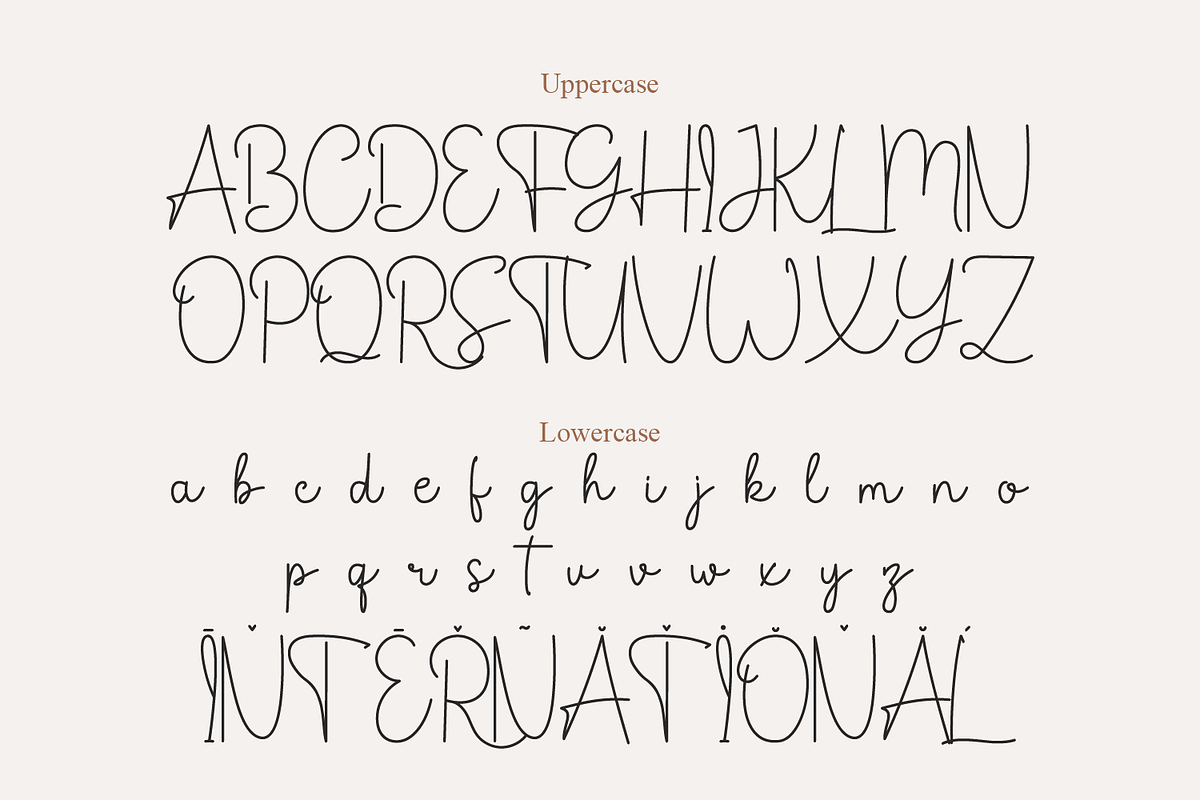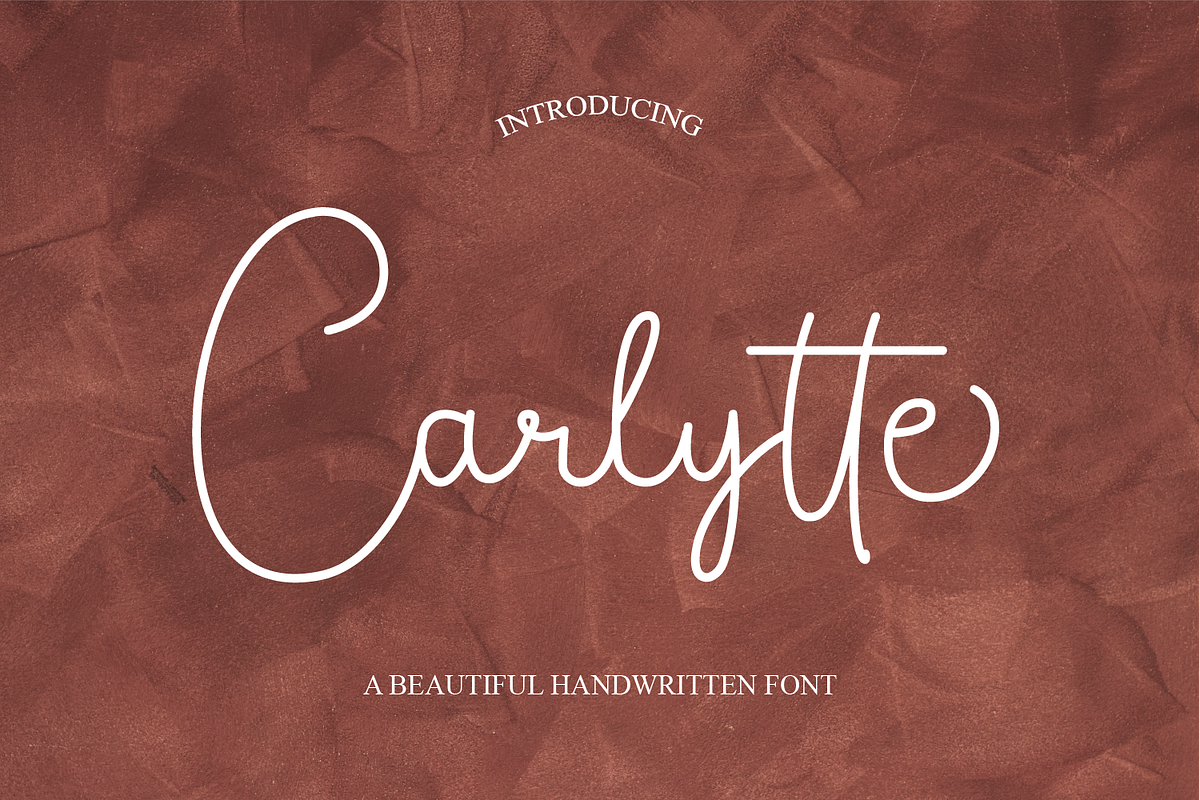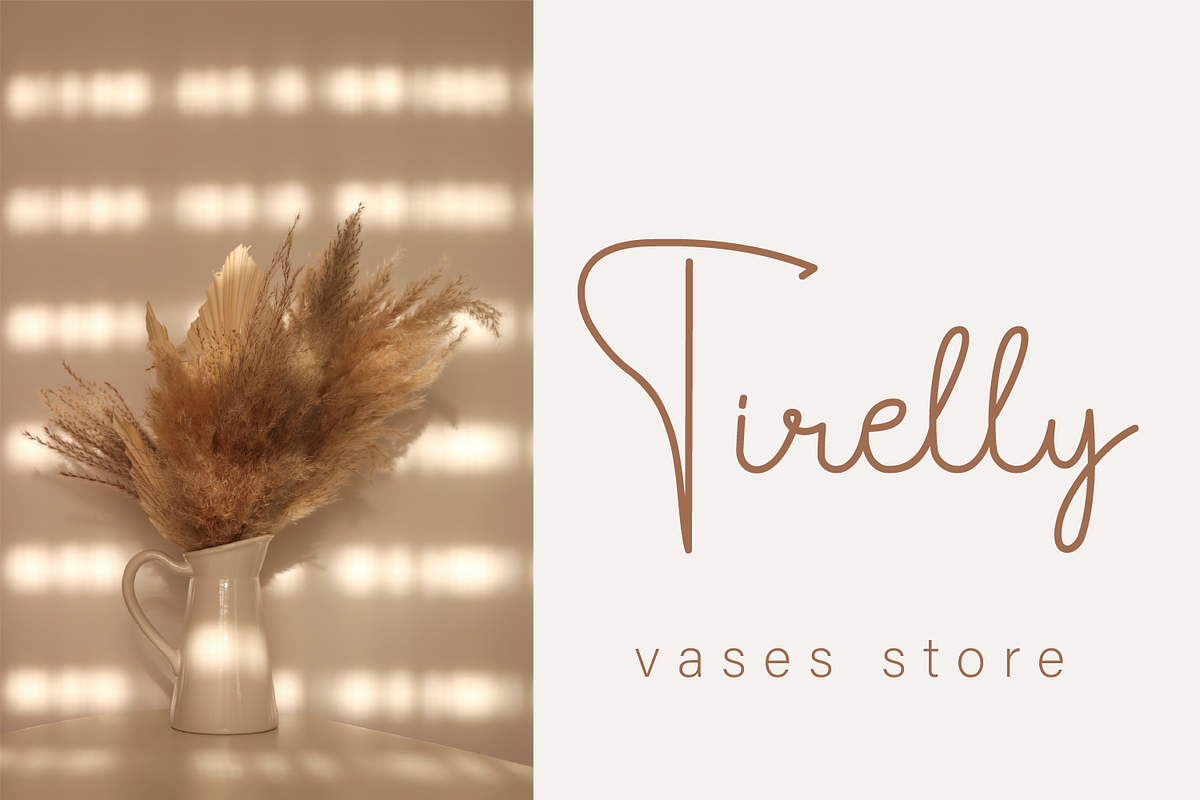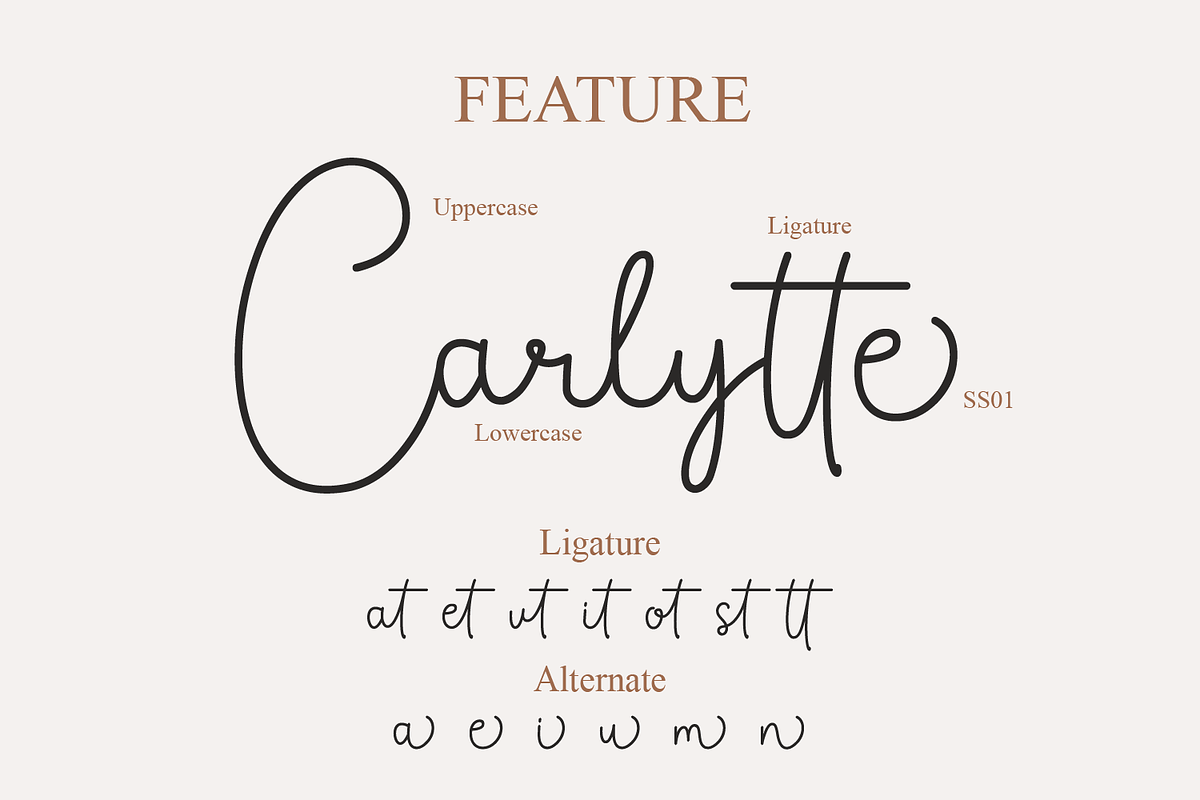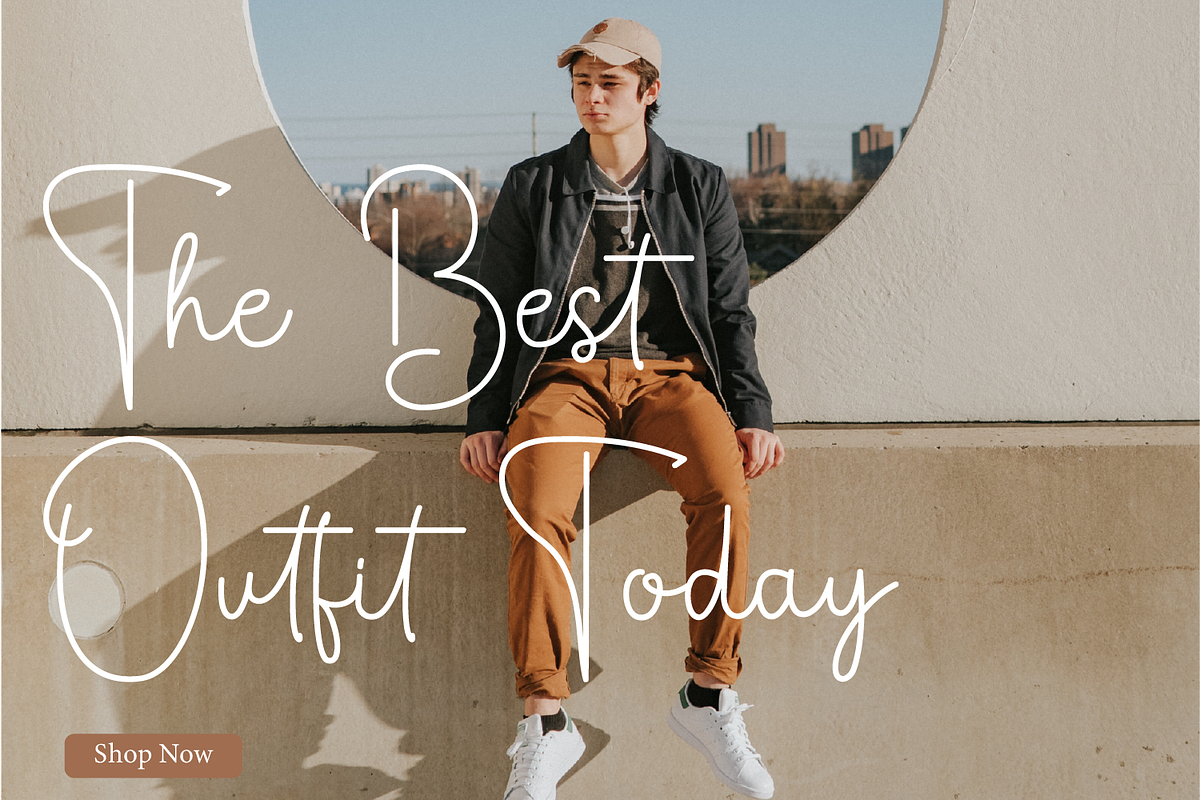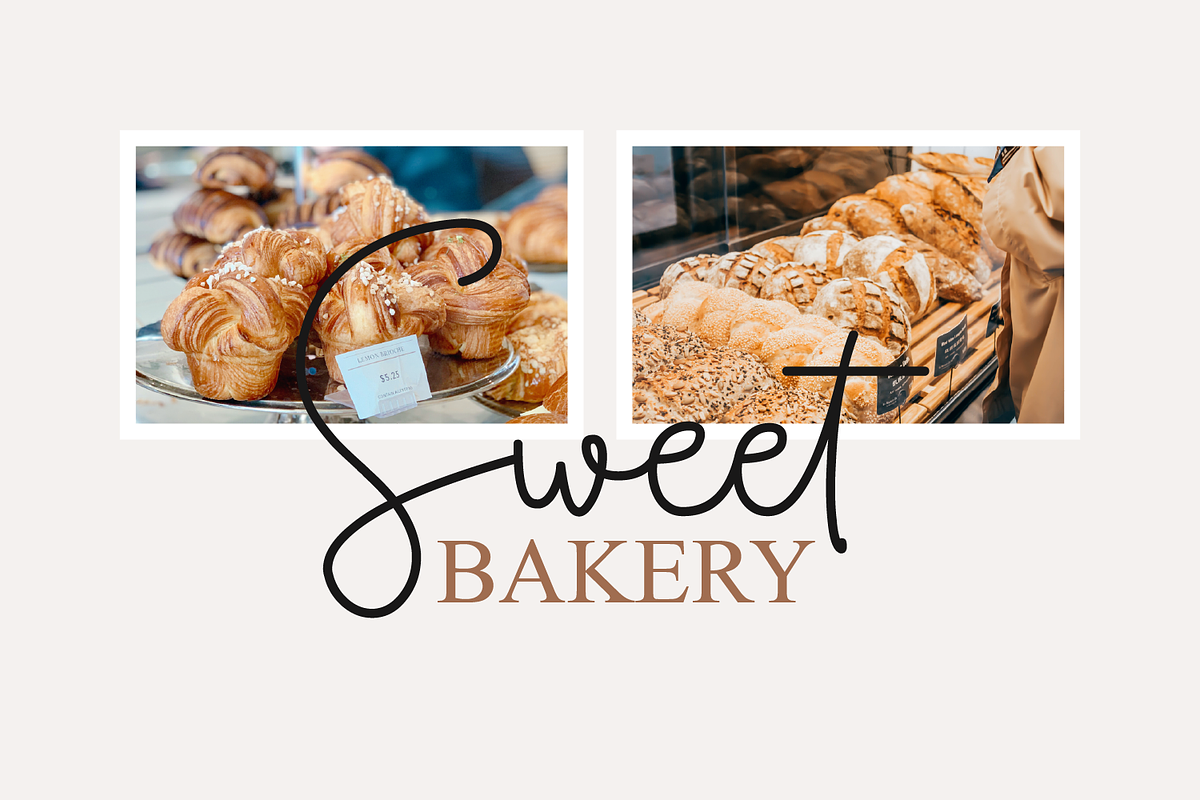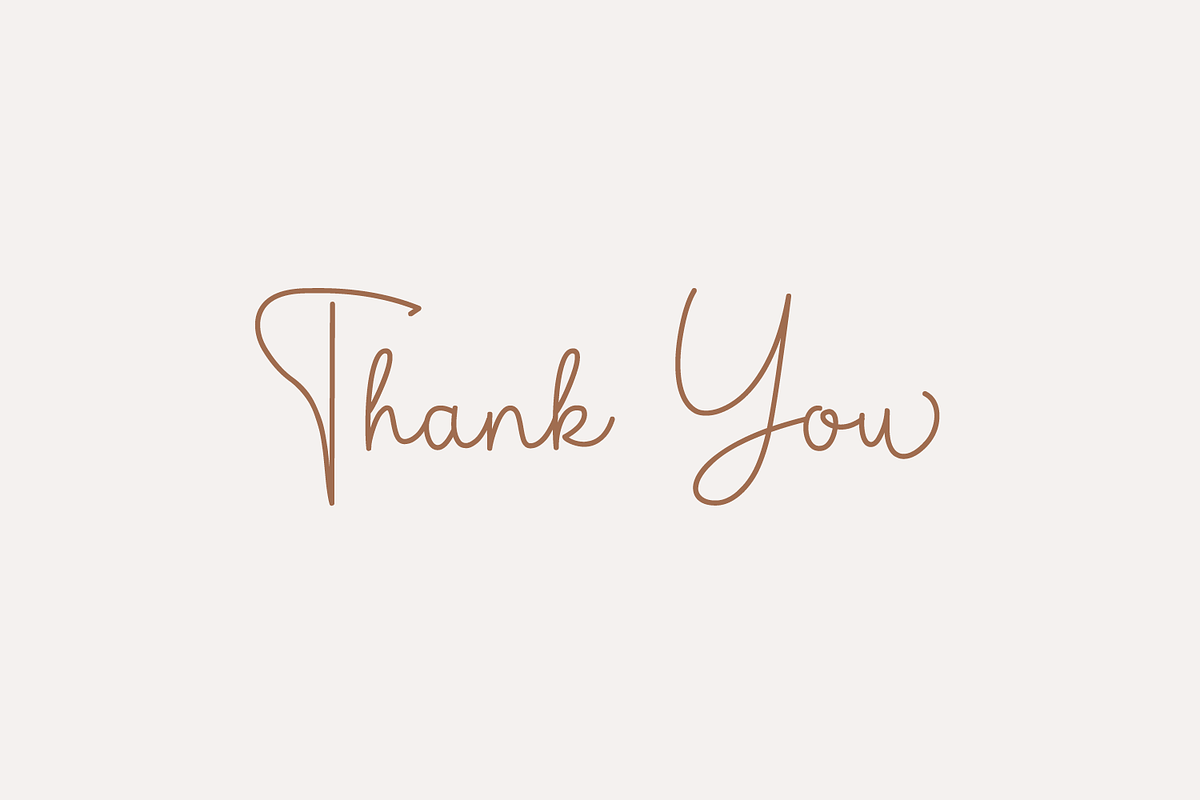
Carlyte | Handwriting Font
Carlytte is a thin and beautiful handwritten font. Its distinct and well rounded letters make this font a masterpiece. Fall in love with its incredibly versatile style and use it to create spectacular designs!